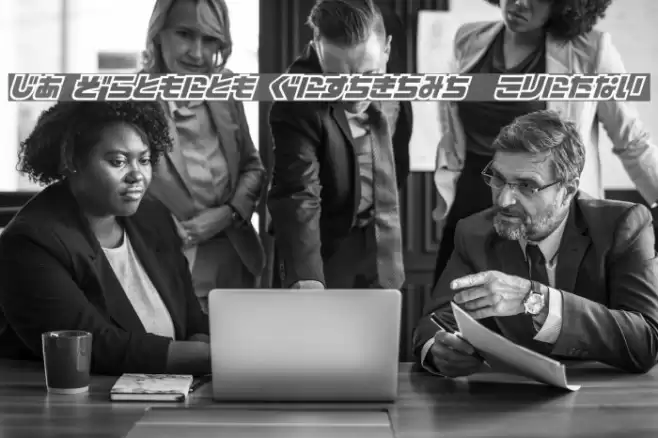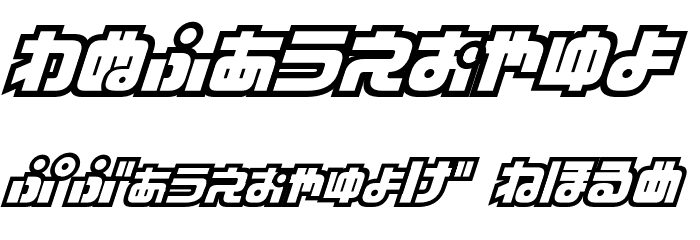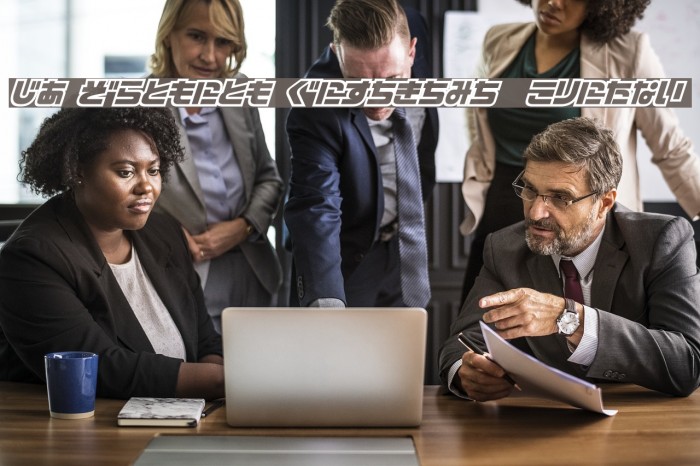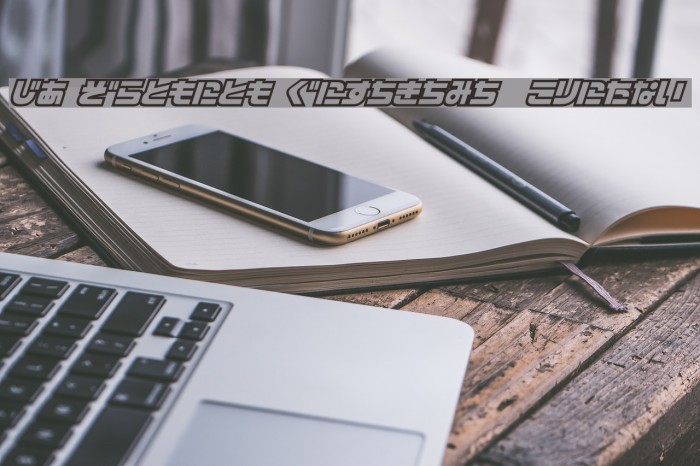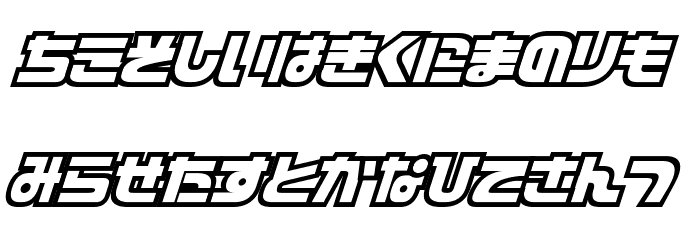
D3 Cosmism Hiragana Oblique Font
D3 Cosmism Hiragana Oblique Description
This font features a bold, oblique style with a strong presence, characterized by thick strokes and a dynamic slant. The characters are outlined, adding a sense of depth and dimension. The font has a modern, futuristic feel, suitable for attention-grabbing designs. Its boldness and slant give it a sense of movement and energy, making it ideal for impactful headlines or titles. The spacing between characters is tight, enhancing its compact and cohesive appearance. The contrast in stroke thickness is high, emphasizing the boldness of each character.
A bold, oblique font with outlined characters and a modern, dynamic style from Uncategorized fonts.
- Proposed Projects: Ideal for futuristic designs, video game graphics, sci-fi themed projects, and bold headlines.
- Character Spacing: Tight